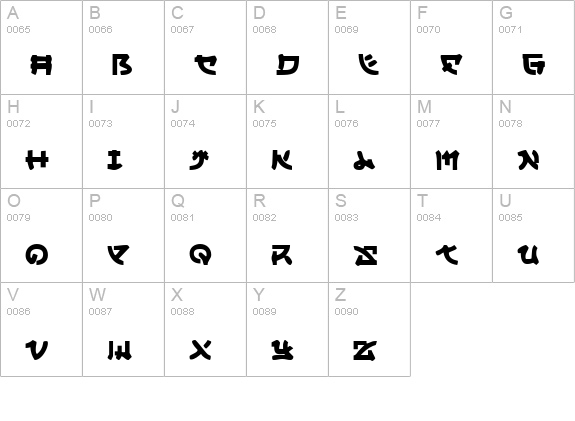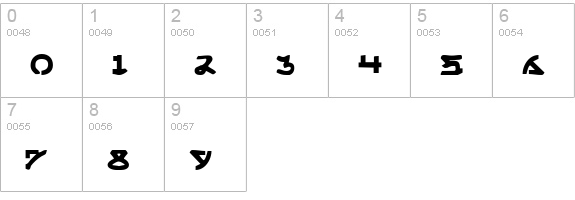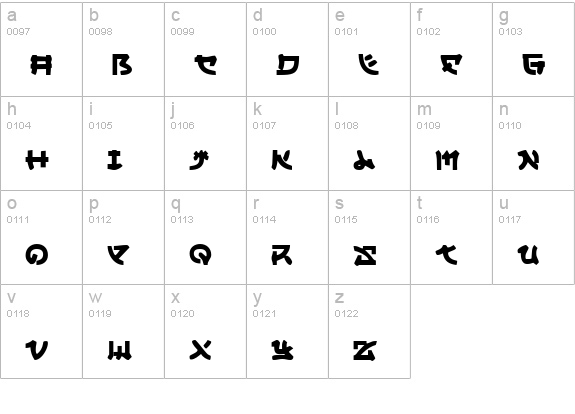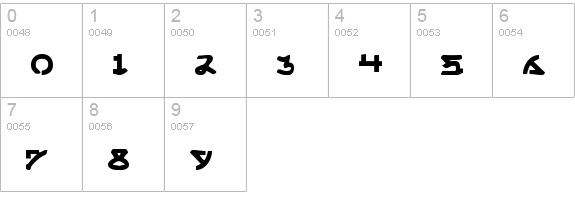
Yama Moto Font Details
Yama Moto font is a stunning display typeface that exudes elegance and sophistication. With its sleek lines and modern design, this font is perfect for a wide range of creative projects, from branding to advertising to editorial design. The unique characters and intricate details of Yama Moto font make it stand out from the crowd and add a touch of class to any project. One of the best things about Yama Moto font is that it is completely free to download. You can easily access this beautiful typeface at FontsMarket.com and start using it in your designs right away. Whether you're a professional designer looking to add a new font to your collection or a hobbyist looking for something fresh and unique, Yama Moto font is sure to impress. Don't miss out on this amazing opportunity to enhance your creative projects with the beauty of Yama Moto font – download it for free today!